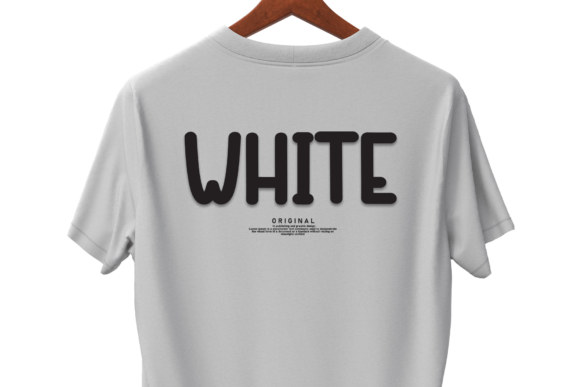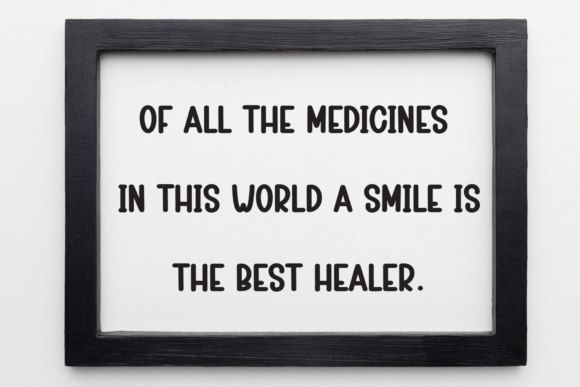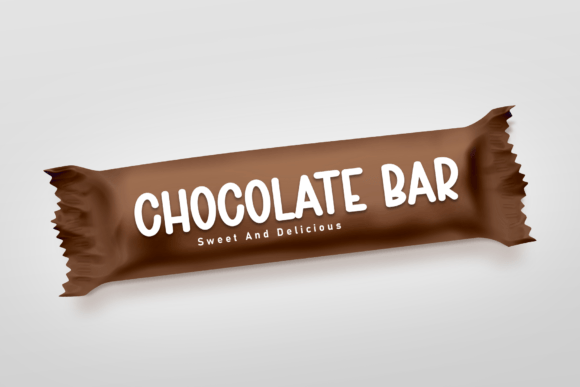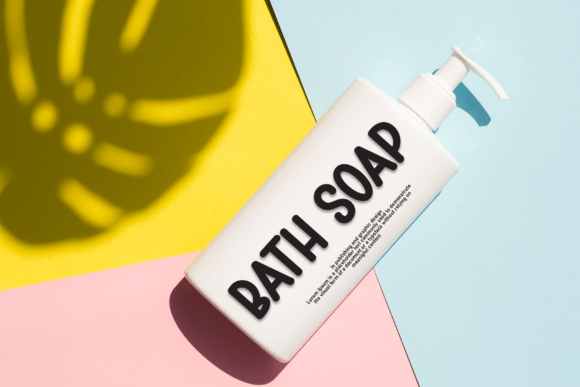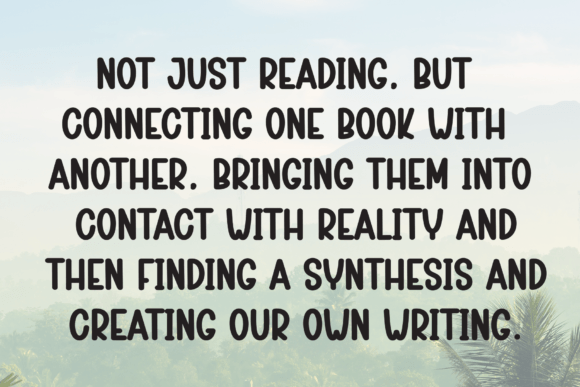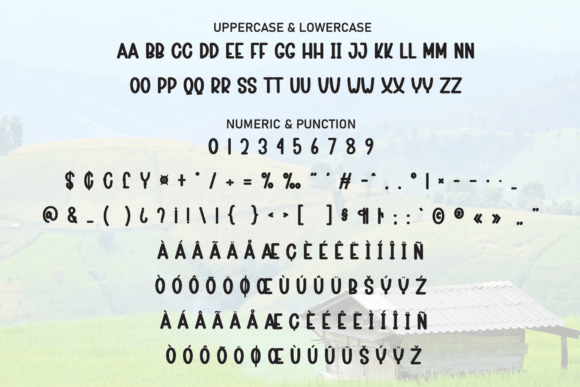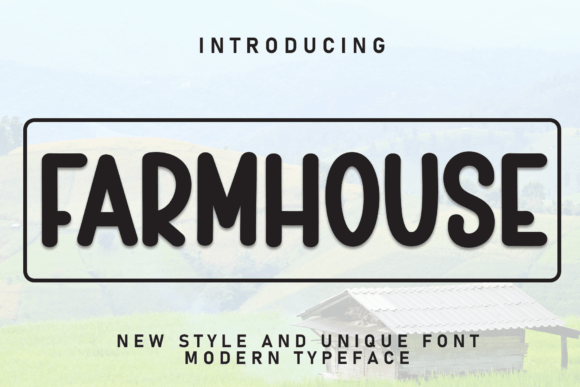
Introducing Farmhouse Font: The Perfect Blend of Casual Charm and Friendly Elegance
In the world of typography, few fonts manage to capture the essence of a carefree, rustic charm quite like Farmhouse Font. This delightful, handwritten font has been making waves among designers, crafters, and DIY enthusiasts alike, and for good reason. With its natural, flowing strokes and relaxed vibe, Farmhouse Font brings an effortless elegance to any design project, making it an ideal choice for those looking to add a touch of warmth and authenticity to their work.
The Characteristics of Farmhouse Font
So, what sets Farmhouse Font apart from other fonts in its class? For starters, its casual, handwritten style gives it a distinctly personal feel that’s hard to replicate with more formal fonts. The natural, flowing strokes of each letter and number evoke a sense of effortlessness, as if they were written in a single, smooth motion. This fluidity is a hallmark of Farmhouse Font, and it’s what gives it such a warm, inviting feel.
Another key characteristic of Farmhouse Font is its relaxed, friendly vibe. This font doesn’t take itself too seriously – it’s not trying to be overly formal or elegant. Instead, it’s content to simply be itself, with all its imperfections and quirks. This approachability is part of Farmhouse Font’s charm, making it an excellent choice for designers and crafters who want to create work that’s relatable, approachable, and down-to-earth.
Perfect for Personal Projects, Social Media, and Invitations
So, what kinds of projects is Farmhouse Font best suited for? The answer is: a wide range of them! Because of its casual, friendly nature, Farmhouse Font is an excellent choice for personal projects, such as scrapbooking, journaling, and crafting. It’s also well-suited for social media graphics, blog posts, and other online content, where its relaxed vibe can help create a sense of connection with readers.
Invitations, too, are a great use for Farmhouse Font. Whether you’re planning a wedding, baby shower, or just a casual get-together, this font can help set the tone for a warm, welcoming event. Its effortless charm makes it easy to create invitations that feel personal and sincere, rather than stuffy or formal.
Bringing Warmth and Authenticity to Your Designs
One of the things that sets Farmhouse Font apart from other fonts is its ability to bring warmth and authenticity to any design. In an age where so much of our communication is digital, it’s easy to feel disconnected from the people and things that matter most. Farmhouse Font helps bridge that gap, with its friendly, approachable style that feels like a warm hug.
For designers and crafters, this can be a major advantage. By using Farmhouse Font in your work, you can create designs that feel more personal, more relatable, and more engaging. Whether you’re working on a client project or a personal endeavor, this font can help you connect with your audience on a deeper level.
Tips for Using Farmhouse Font Effectively
So, how can you get the most out of Farmhouse Font? Here are a few tips to keep in mind:
- Keep it simple: Farmhouse Font is at its best when it’s used in a simple, straightforward way. Avoid over-complicating your design with too many fonts or graphics – instead, let Farmhouse Font be the star of the show.
- Experiment with colors: Farmhouse Font looks great in a range of colors, from soft pastels to rich earth tones. Don’t be afraid to experiment and find the color palette that works best for your design.
- Mix and match: Farmhouse Font can be paired with a range of other fonts and graphics to create a unique, eye-catching design. Try mixing it with bold fonts, illustrations, or textures to add depth and interest.
In conclusion, Farmhouse Font is a versatile, charming font that’s perfect for designers, crafters, and DIY enthusiasts alike. With its natural, flowing strokes and relaxed, friendly vibe, it’s an excellent choice for personal projects, social media, invitations, and more. By incorporating Farmhouse Font into your work, you can bring a touch of warmth and authenticity to your designs, and connect with your audience on a deeper level.
So why not give Farmhouse Font a try? With its effortless charm and easygoing style, it’s sure to become a favorite in your design toolkit.